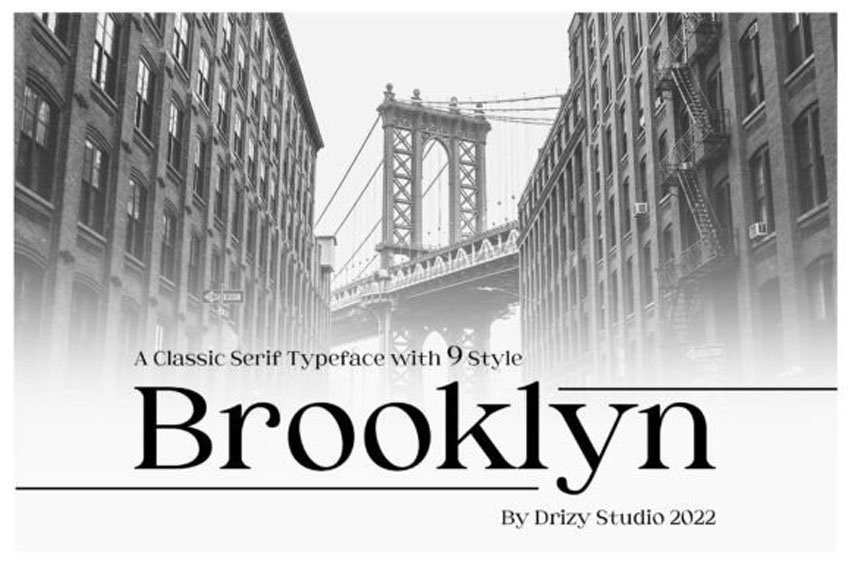
Brooklyn Font
Brooklyn Font is a cool and assertive serif font. Contemporary and fresh, it is perfect for any design you wish to create.
Add it to your creative projects and make them outstanding!